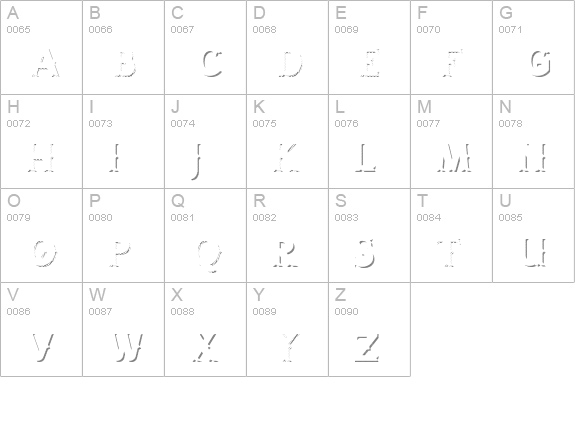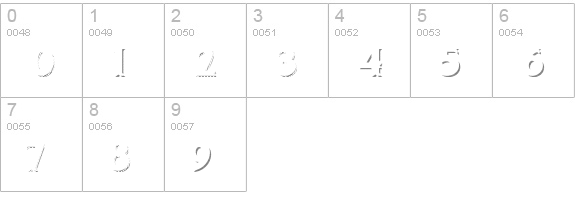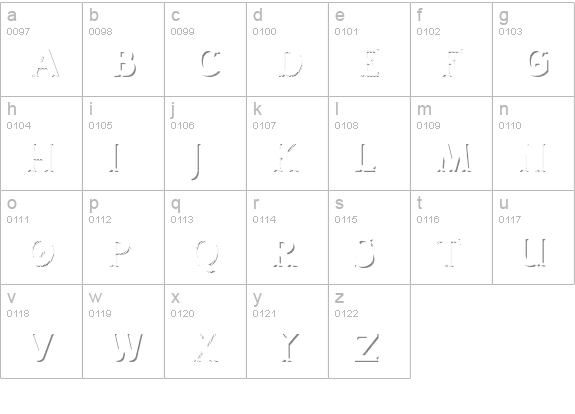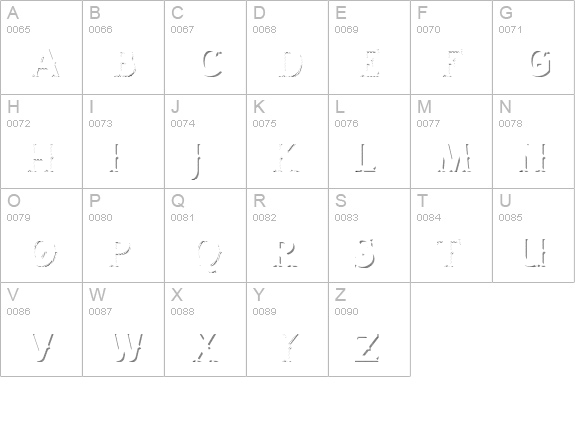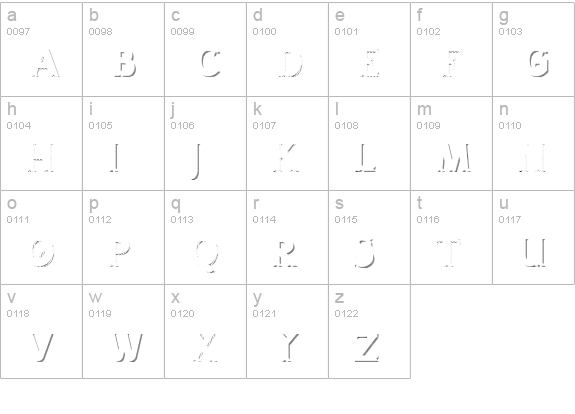
LAKESTER SHADOW LAYER 2 Font Details
Introducing Lakester Shadow Layer 2 font, a captivating and versatile typeface that exudes elegance and sophistication. This unique font features intricate shadow layers that add depth and dimension to any design project. Perfect for creating eye-catching headlines, logos, posters, and more, Lakester Shadow Layer 2 brings a touch of modernity and style to your work. And the best part? Lakester Shadow Layer 2 font is available for free download at FontsMarket.com! With just a few clicks, you can enhance your designs with this stunning font without breaking the bank. Don't miss out on the opportunity to elevate your projects with the beauty and charm of Lakester Shadow Layer 2 font. Download it today and let your creativity shine!